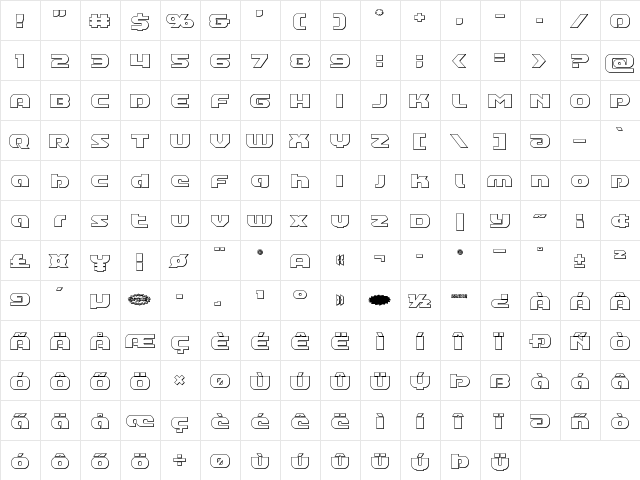
Annapolis Lower Case Outline
Design Context for Annapolis Lower Case Outline Typeface
Annapolis Lower Case Outline is built around its visual character rather than neutral utility — its distinctive forms are designed to make an impression at display sizes.